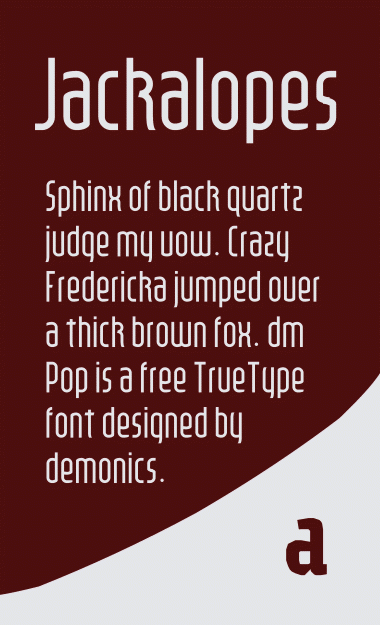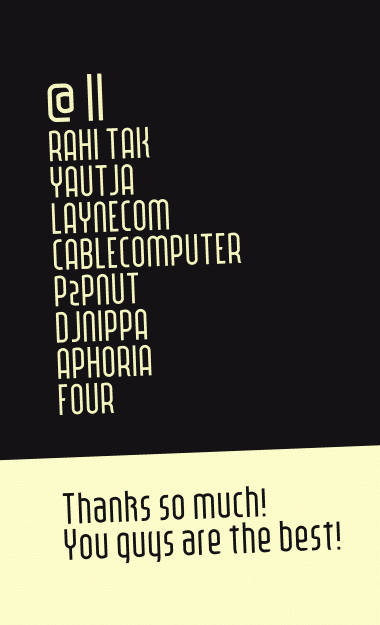
This is really good! It looks futuristic, sort of. The only thing I spot that seems a little off/weird is the capital and lowercase Ss, which seem to have a brick popping out in the center? I don't know if you did that on purpose, but it kind of ruins the smoothness with that there.
@rahi-tak // The S s solution that I have was the best idea I had -- I'm open for suggestions!
For S/Z:
This one is awesome! I love the k!
You're one of the few here on FS who has developed his/her (?) own typeface style.
Very original style! And absolutely agree with laynecom. 10/10
Very readable indeed. I agree with
laynecom about that 'k'. 10/10
I'm lovin' that k. Very distinctive.
@p2pnut, djnippa // Thanks! I asked some people what they thought of the font before it was published, and they said the k was too much like a capital R, but I guess it's OK!
Love the k. I would consider attaching the right half of the K to the left leg.
Excellent font, nothing wrong with sample, great k, 10/10
Also, this is my favorite 4 of all time. :P
Great! Without looking at who made this I could immediately tell it was demonics, with that signature low crossbar on the A.